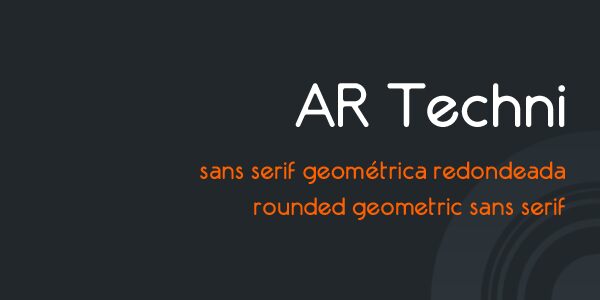
AR Techni by Heber Xavier Arroyo is a free geometric sans serif with a sleek, technology-minded profile. Rounded monoline strokes meet abrupt angles, giving the letters an unconventional construction. The broad curves feel especially smooth.
That mix suits software branding and electronic product packaging, yet it can lend a futuristic note to music posters and event graphics. Distinctive triangular joins and open forms can become a recognizable part of a technology brand or product identity.